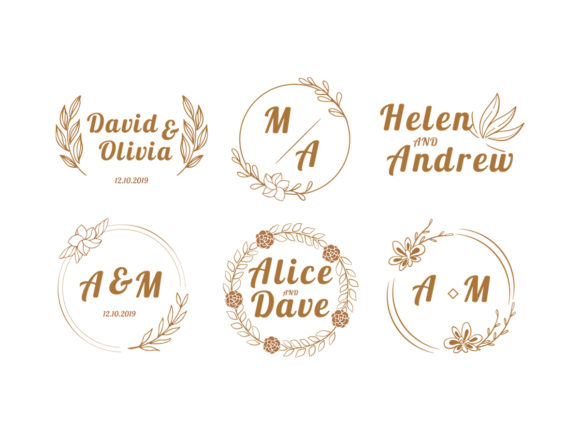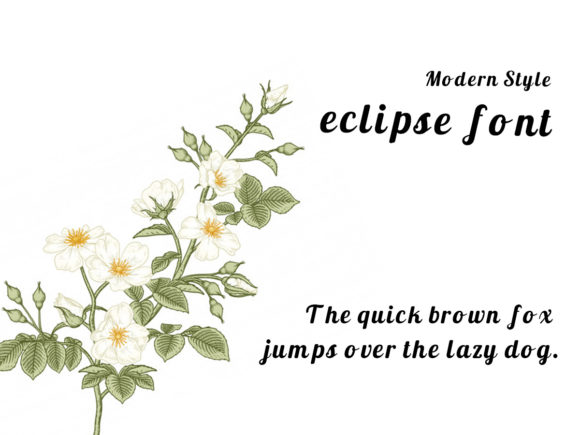
Eclipse Font
About Eclipse Font
Eclipse is a stylish and flowing handwritten typeface. Fall in love with its incredibly versatile style and use it to create gorgeous wedding invitations, beautiful stationary art, eye-catching social media posts, and much more!